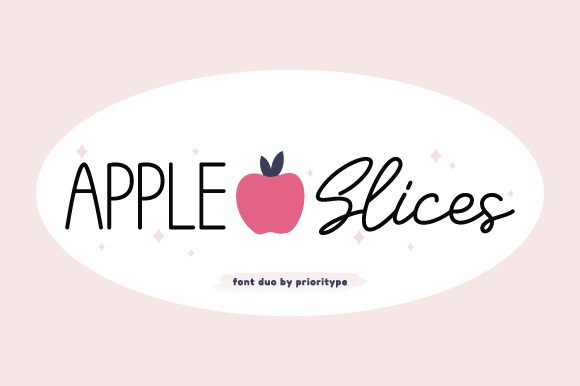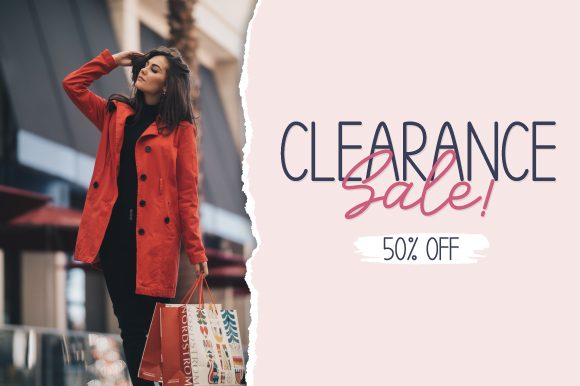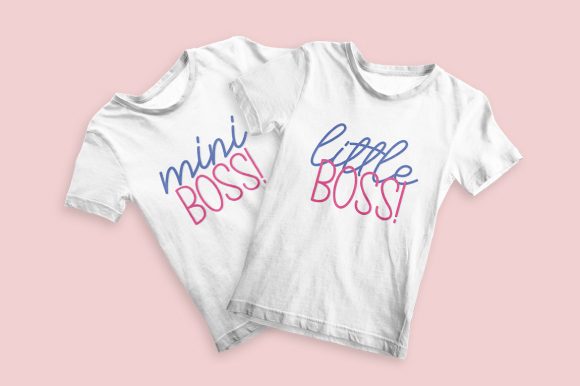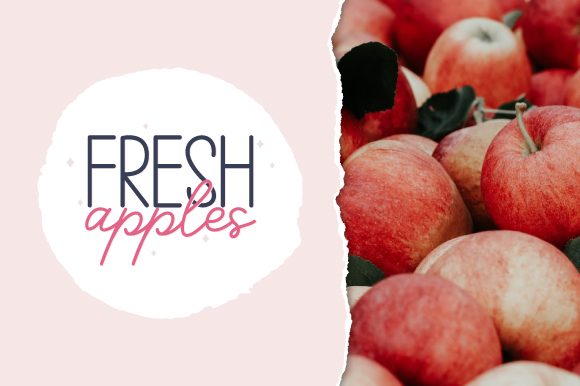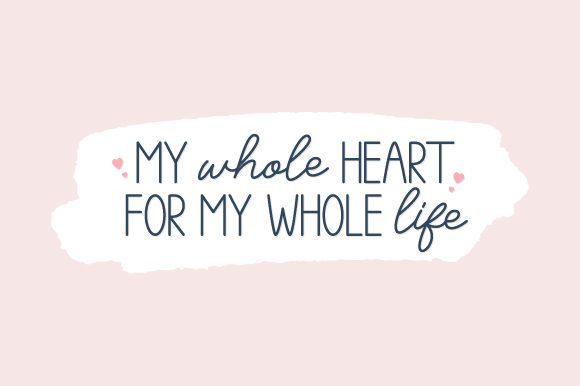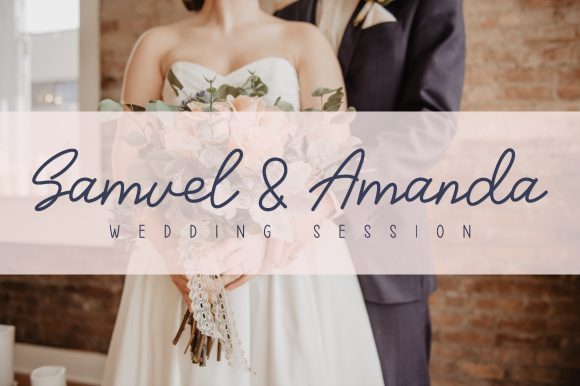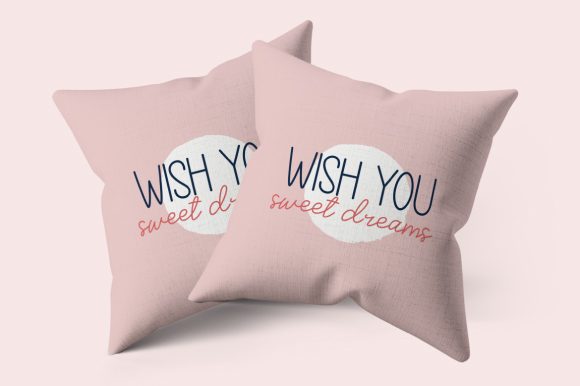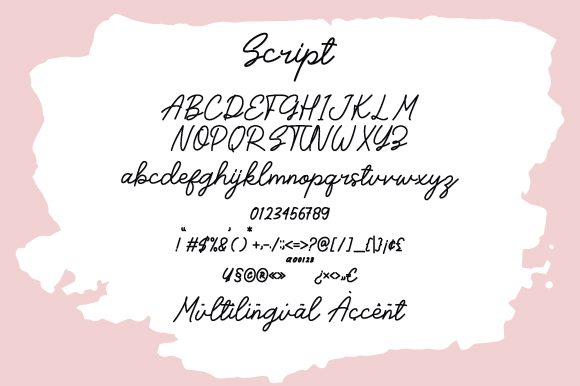
Apple Slices Font
Apple Slices is a thin and delicate script font. Its sweet and full of life style makes this font a wonderful choice for brightening up your designs.